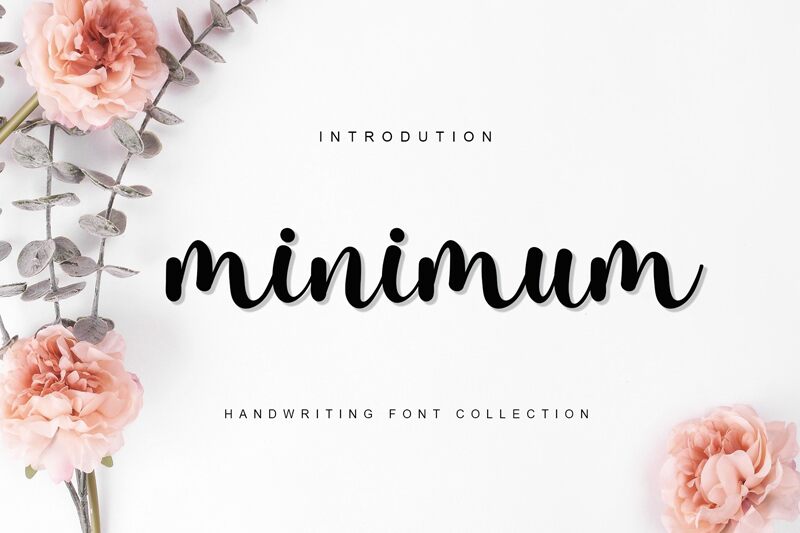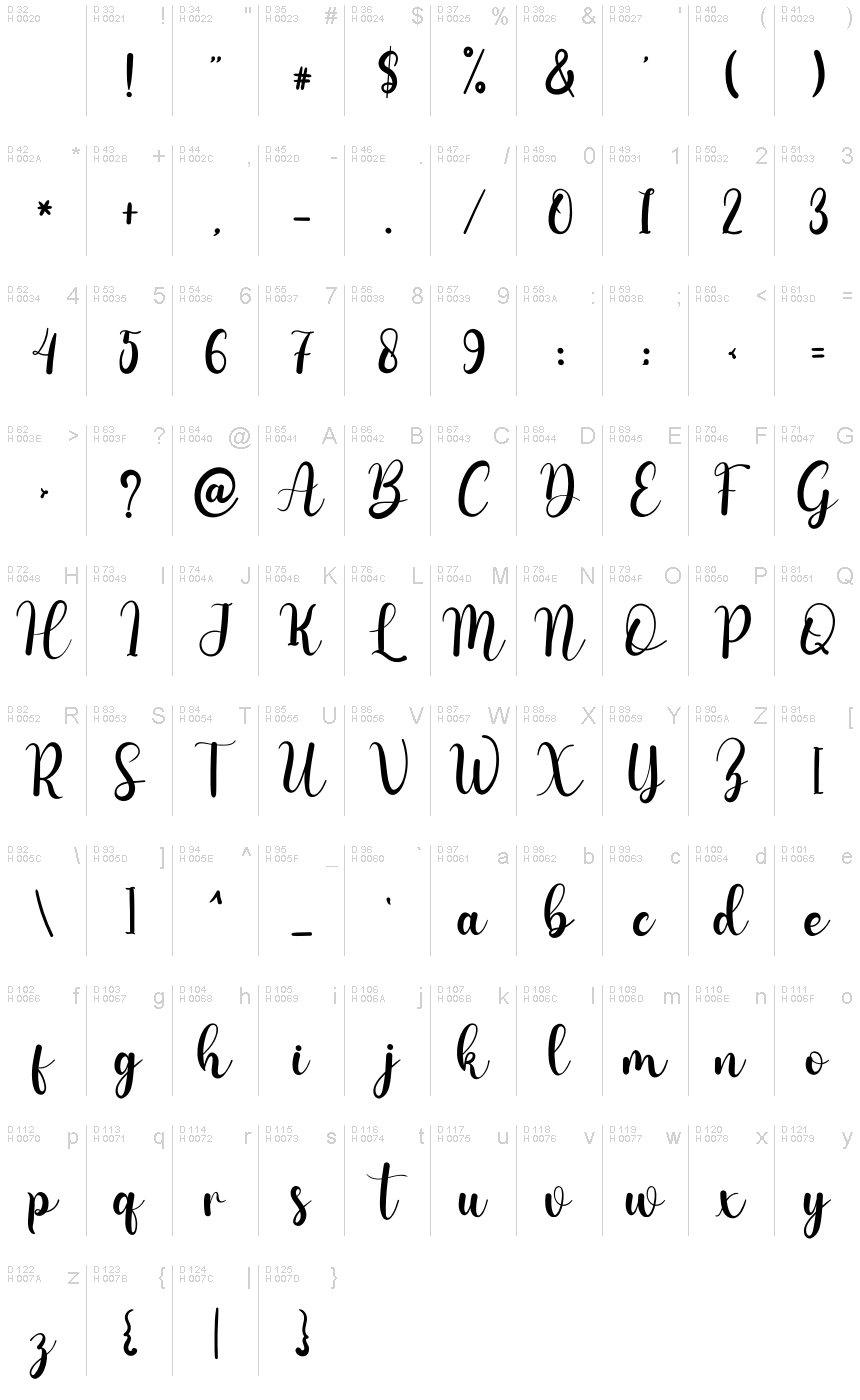
Minimum
Minimum, designed by Juneteenth, gracefully bridges the gap between classic calligraphy and contemporary flair. Its handwritten style exudes an elegant charm, making it an ideal choice for projects aiming to convey sophistication with a personal touch. The fluidity of its strokes adds a dynamic yet refined feel, creating a sense of individuality that breathes life into each character.
This font's adaptability makes it perfect for various applications where a touch of elegance is desired. It can elevate the design of letterheads, transform titles into artful statements, and infuse stationery with distinct personality. Minimum is more than just a font—it's an accessory that enhances the creative expression in both print and digital realms.